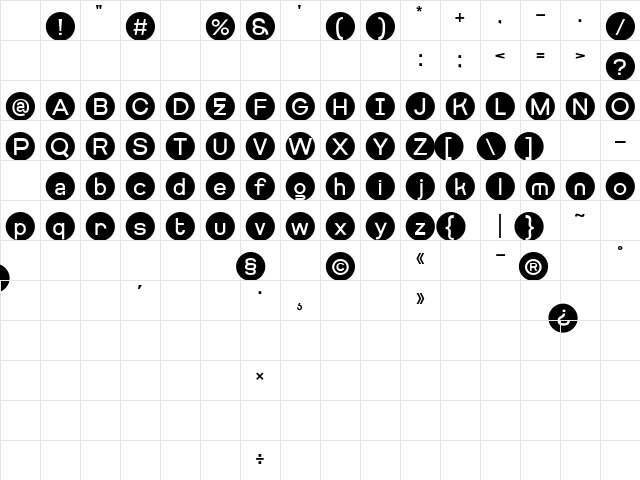
Getboreg Spare Regular
Designer: Ffeeaarr
Design Context for Getboreg Spare
Getboreg Spare is a composed and adaptable typeface that performs quietly and consistently across a wide range of design contexts.
Pro Tip: Use Getboreg Spare in both headline and body roles to test its range before committing to a single application.